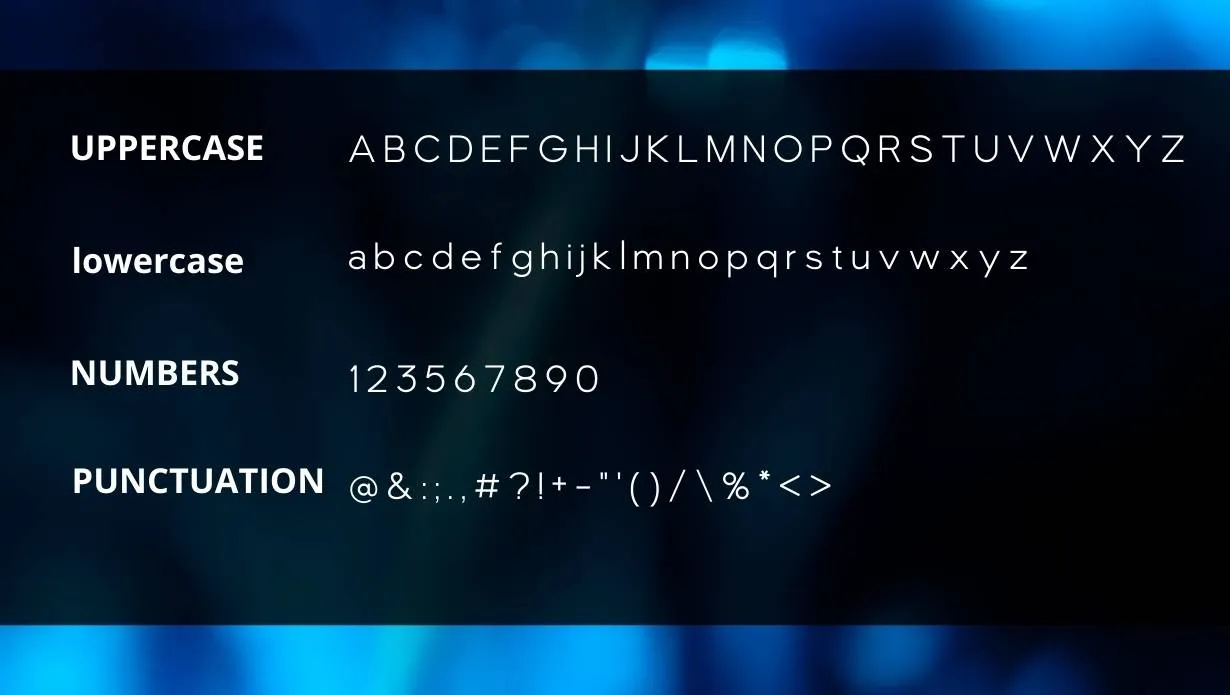
Algoria Font is a Sans Serif typeface created by French-type foundry Algotype. The design is inspired by the work of Swiss designer Adrian Frutiger and was released in 2012.
The font includes both uppercase and lowercase letters, as well as numbers and punctuation. It is also good for pairing functions and if you need a more stylish look to your modern designs then use this typeface with the combination of nord font.
View of Algoria Font
| Name | Algoria Font |
| Designer | Algotype |
| Style | Sans Serif |